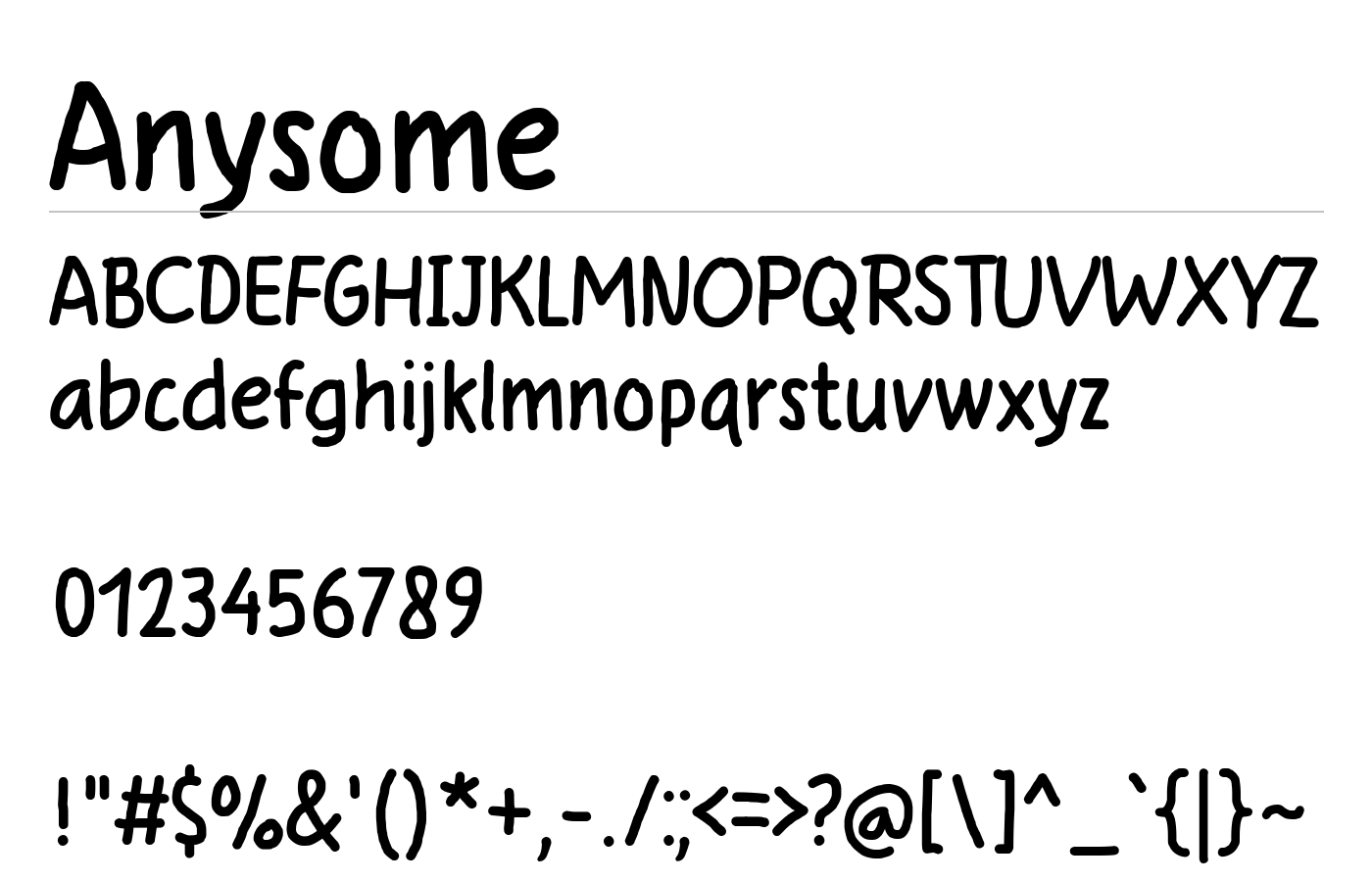
Anysome is a casual, handwritten sans serif font that exudes a friendly and approachable vibe. Its slightly irregular, rounded letterforms and moderate x-height give it a playful yet readable character, making it ideal for informal designs such as children's books, greeting cards, or creative branding that seeks a personal touch. This font works best in large sizes for headlines or logos where its warm and human feel can truly stand out.
Anysome Font
| Designer | Situjuh Nazara |